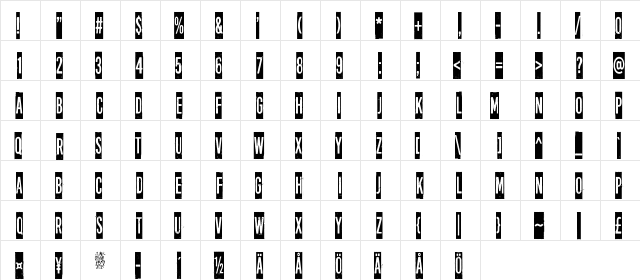
Long distance call Regular
Design Context for Long distance call Typeface
Long distance call takes a measured approach to typography — its balanced proportions and neutral character make it a reliable workhorse for both digital and print work.